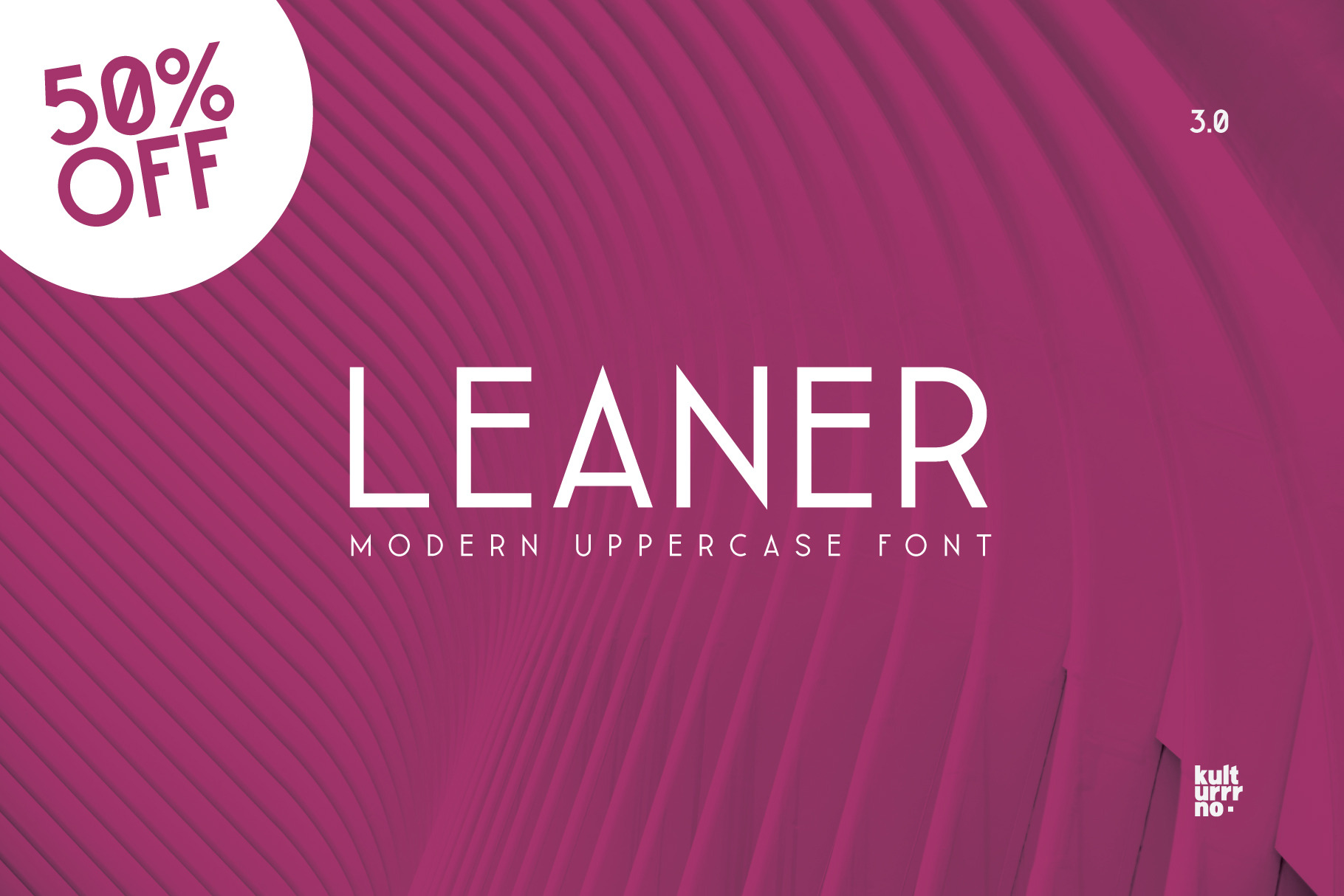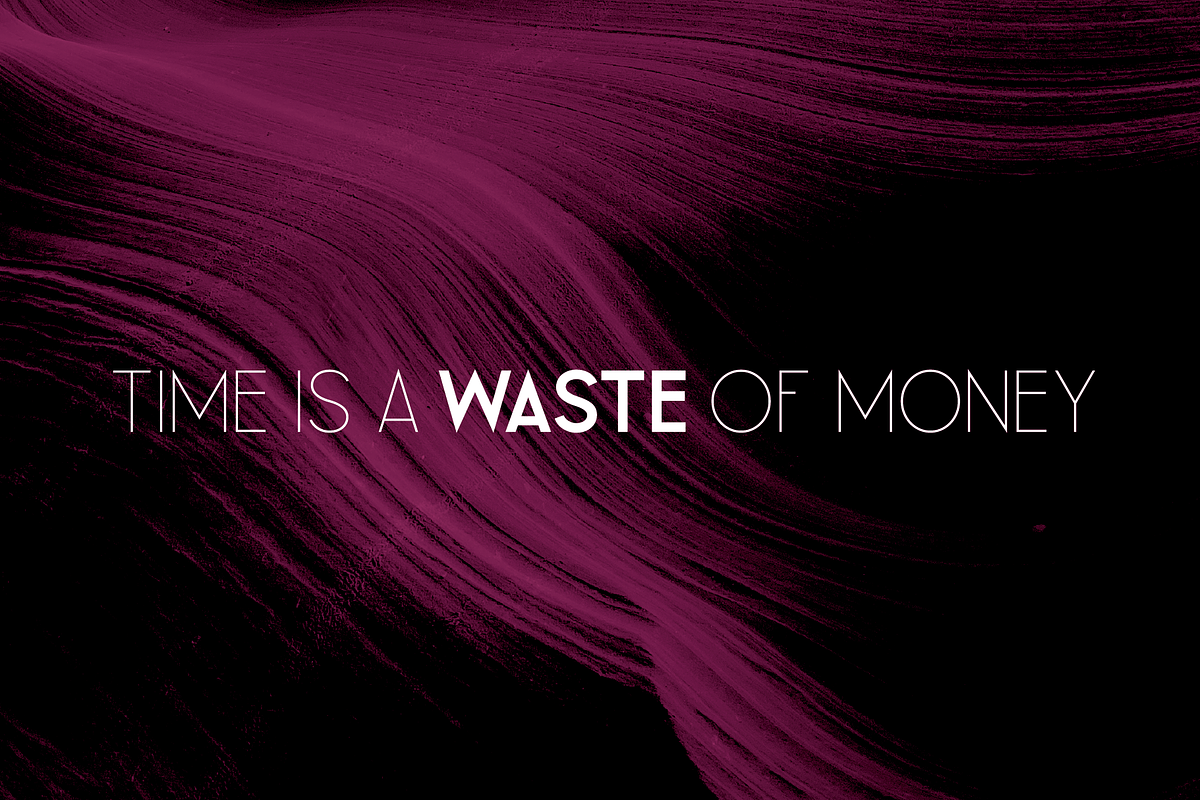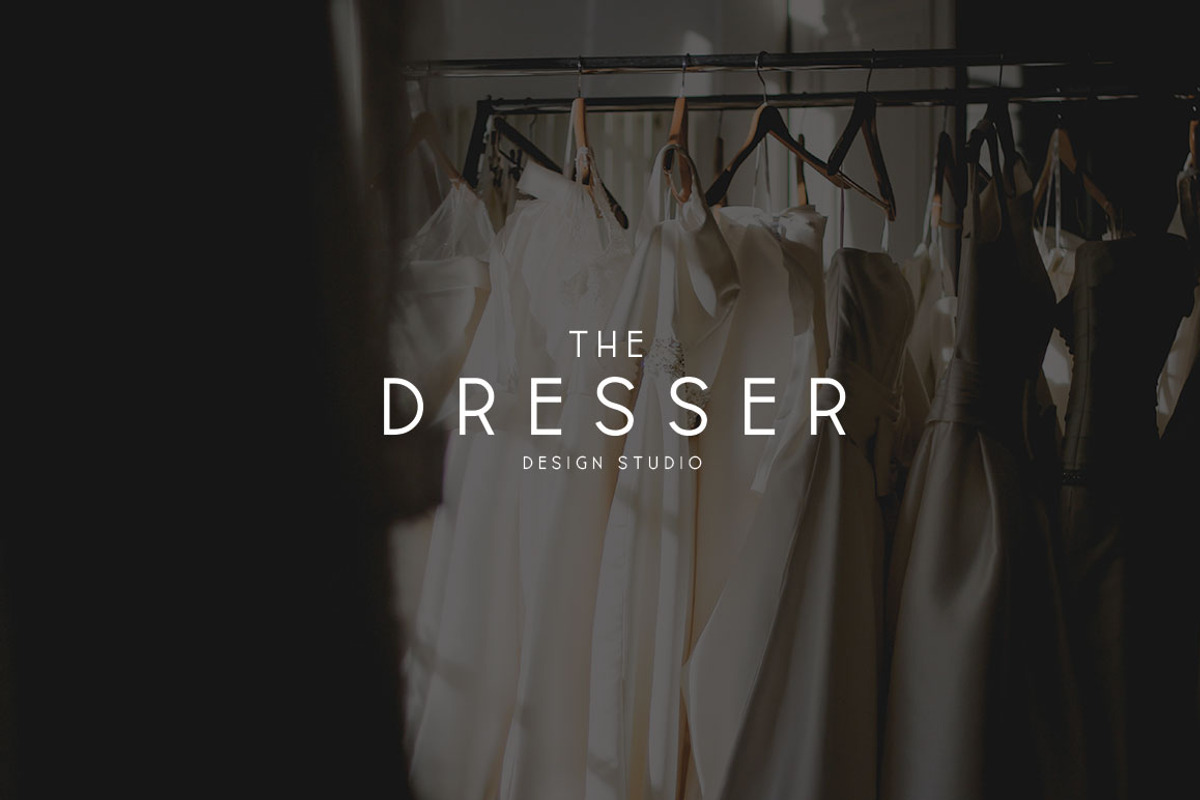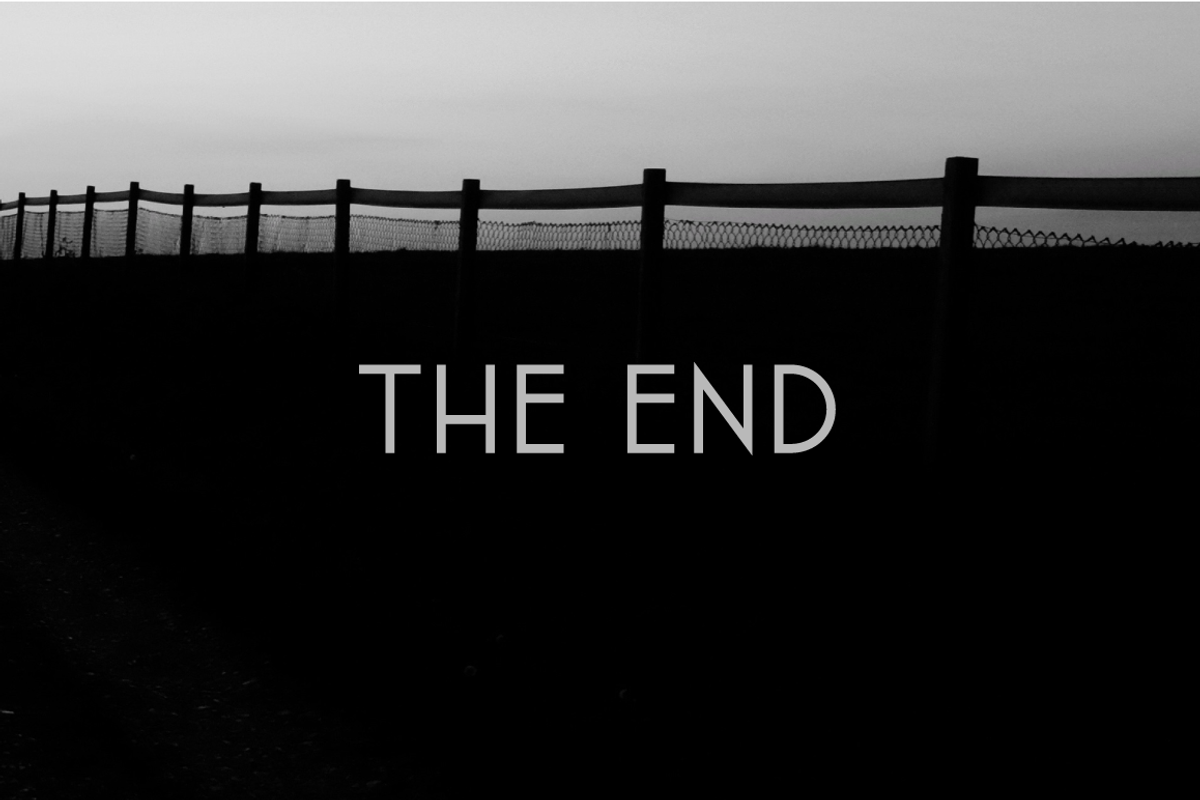
Leaner Font - 3 weights
"Leaner" is uppercase sans-serif typeface.
It’s clean and universal. Best for logos and heading.
- Extended latin glyphs
- Uppercase letters
- Thin / Regular / Bold weights + Same italics